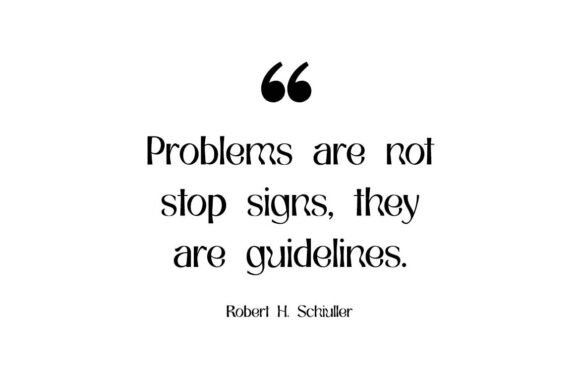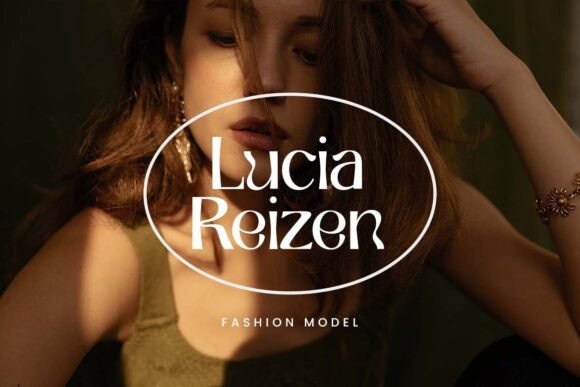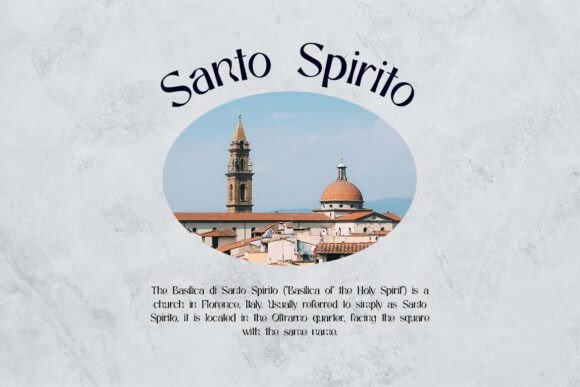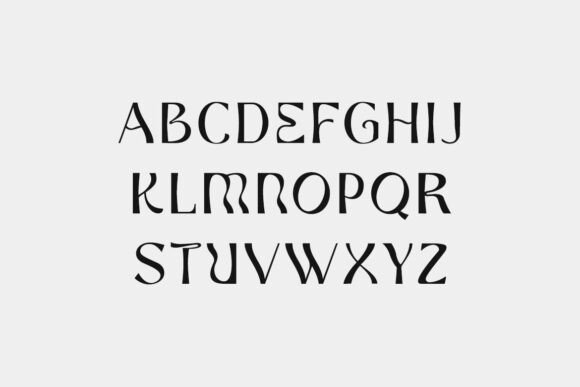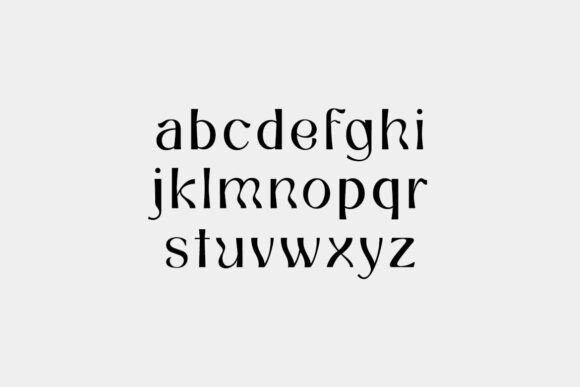
Introducing Equistrian Font: Elevate Your Designs with Elegance and Versatility
In the world of typography, a font can make or break a design. For designers and crafters looking for a modern display font that exudes elegance and versatility, look no further than Equistrian. This stunning font is perfect for a wide range of projects, from signature and stationery to logos, wedding designs, typography quotes, magazine or book covers, website headers, branding, and more.
What Makes Equistrian Font Stand Out?
Equistrian is a modern display font that boasts a unique blend of masculine and feminine qualities, making it an ideal choice for fashion-related branding or editorial design. Its elegant and sophisticated design ensures that your projects stand out from the crowd, while its versatility allows you to experiment with various design styles and applications.
Whether you’re working on a logo design, wedding invitation, or magazine cover, Equistrian font is the perfect choice. Its modern and sleek design ensures that your project looks contemporary and stylish, while its elegant and refined aesthetic makes it suitable for more traditional or formal designs.
Signature and Stationery
Equistrian font is an excellent choice for creating custom signature and stationery designs. Its elegant and sophisticated design ensures that your correspondence looks refined and professional, making it perfect for business or personal use.
Logo Design
When it comes to logo design, Equistrian font offers endless possibilities. Its modern and sleek design makes it perfect for creating a bold and eye-catching logo that represents your brand or business.
Wedding and Typography Quotes
Equistrian font is also an excellent choice for wedding designs and typography quotes. Its elegant and refined aesthetic ensures that your wedding invitation, save-the-date, or typography quote looks beautiful and sophisticated.
Magazine or Book Covers
For designers working on magazine or book covers, Equistrian font is an excellent choice. Its modern and sleek design ensures that your cover looks contemporary and stylish, while its elegant and refined aesthetic makes it suitable for more traditional or formal publications.
Website Headers and Branding
Equistrian font is also perfect for website headers and branding. Its modern and sleek design ensures that your website looks contemporary and stylish, while its elegant and refined aesthetic makes it suitable for a wide range of brands and businesses.
Fashion-Related Branding and Editorial Design
One of the unique features of Equistrian font is its ability to display both masculine and feminine qualities, making it an excellent choice for fashion-related branding and editorial design. Whether you’re working on a campaign for a fashion brand or designing an editorial spread, Equistrian font is the perfect choice.
Why Choose Equistrian Font?
So why choose Equistrian font for your next design project? Here are just a few reasons:
- Elegant and sophisticated design: Equistrian font boasts a modern and sleek design that exudes elegance and sophistication.
- Versatility: Equistrian font is perfect for a wide range of projects, from signature and stationery to logos, wedding designs, typography quotes, magazine or book covers, website headers, branding, and more.
- Masculine and feminine qualities: Equistrian font displays both masculine and feminine qualities, making it an excellent choice for fashion-related branding and editorial design.
In conclusion, Equistrian font is a modern display font that offers elegance, versatility, and sophistication. Its unique blend of masculine and feminine qualities makes it an excellent choice for fashion-related branding and editorial design, while its elegant and refined aesthetic ensures that your projects stand out from the crowd. Whether you’re a designer or crafter, Equistrian font is the perfect choice for your next design project.